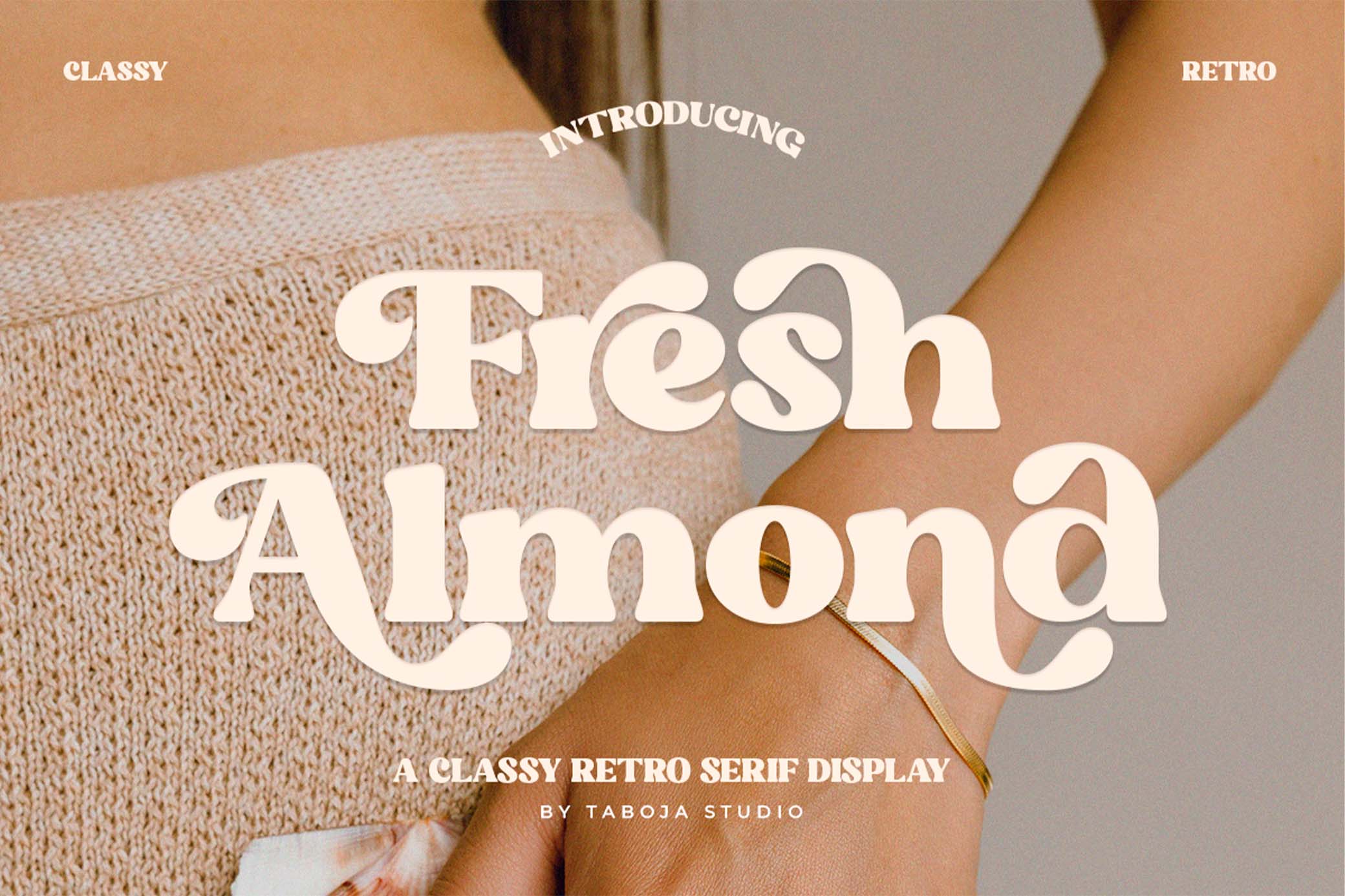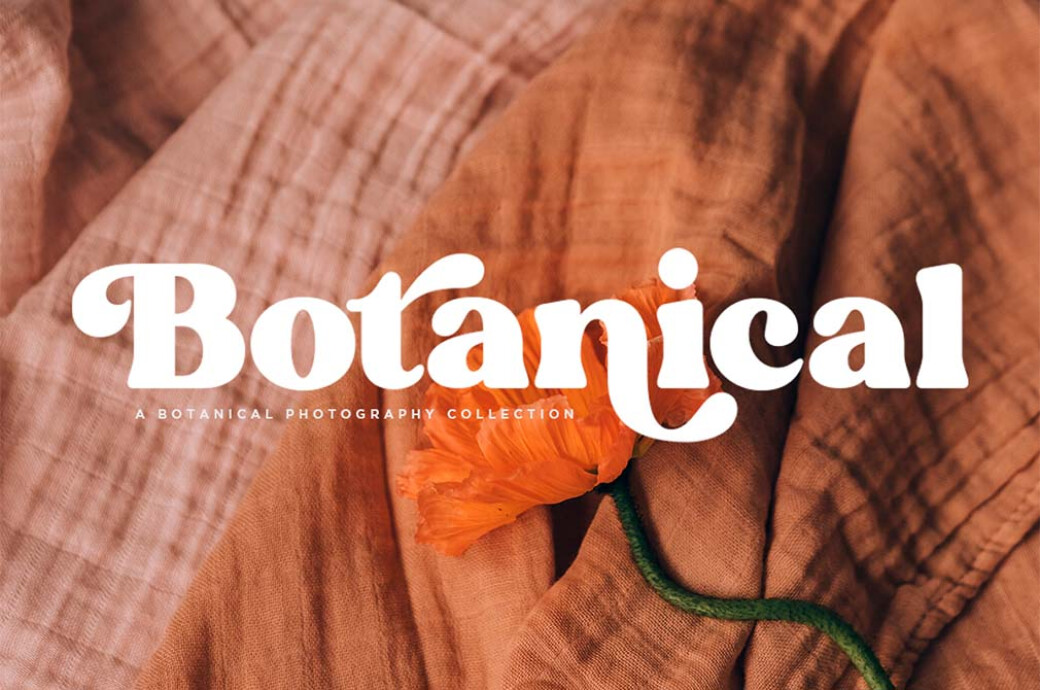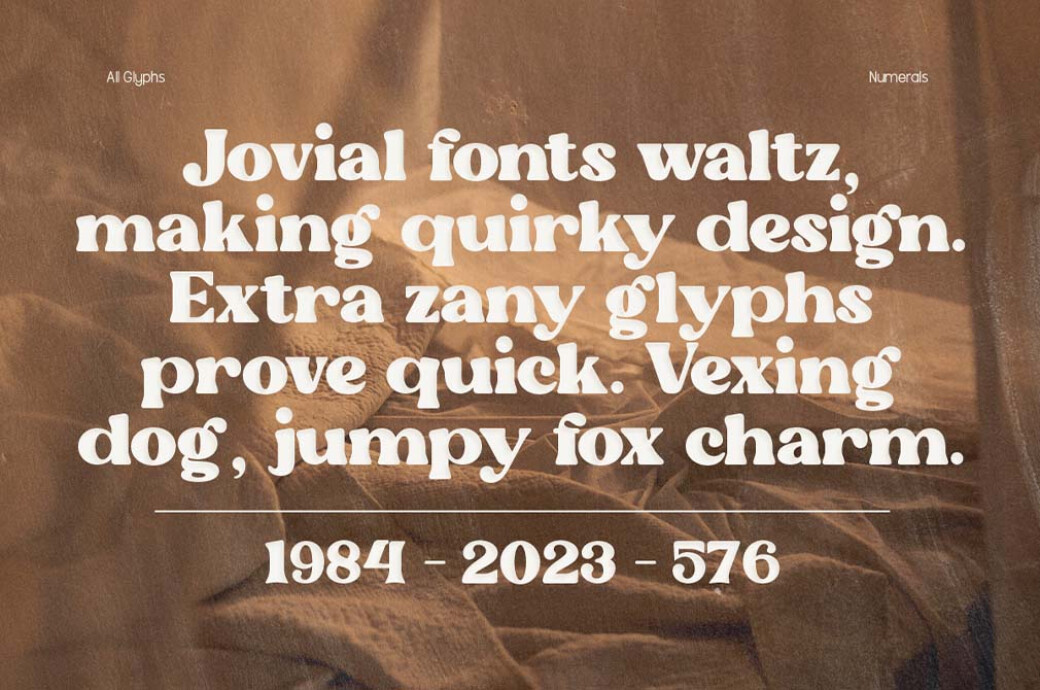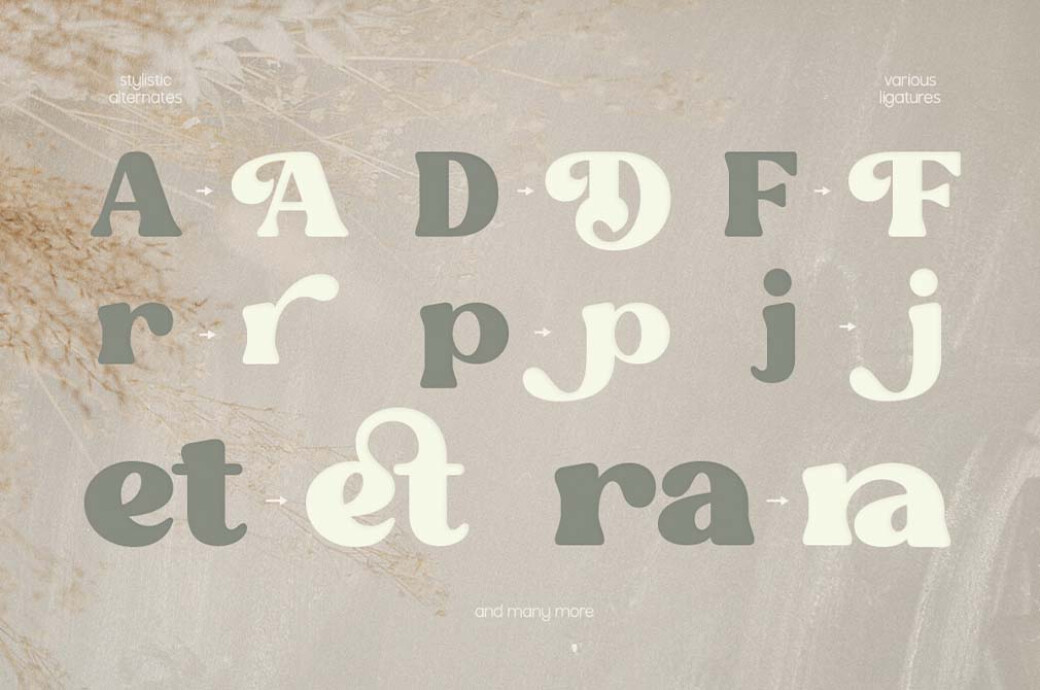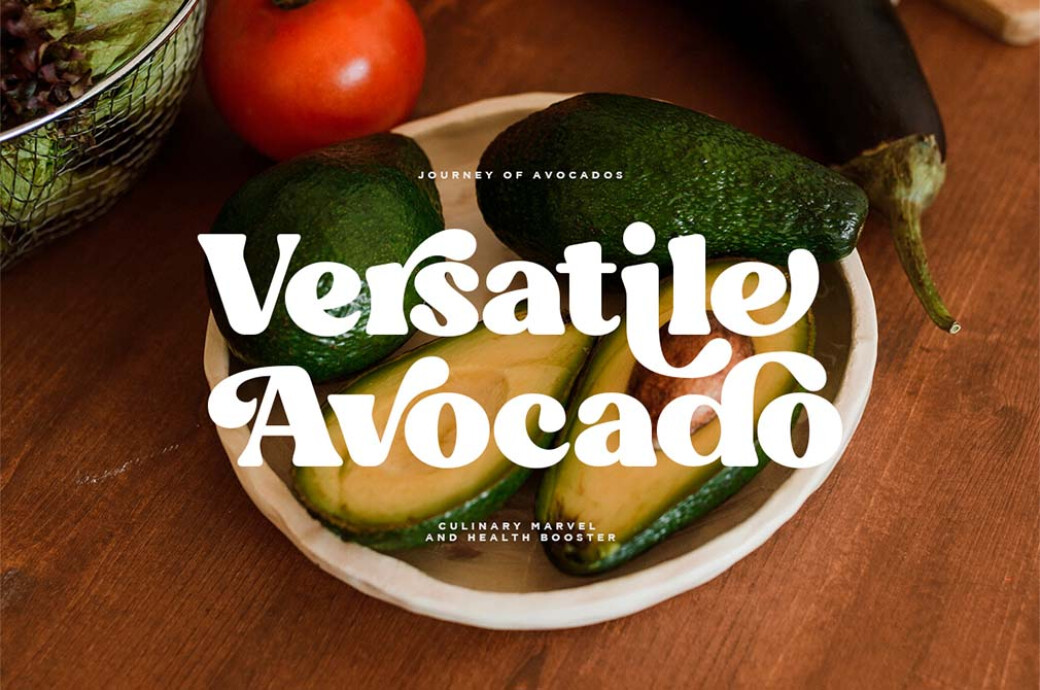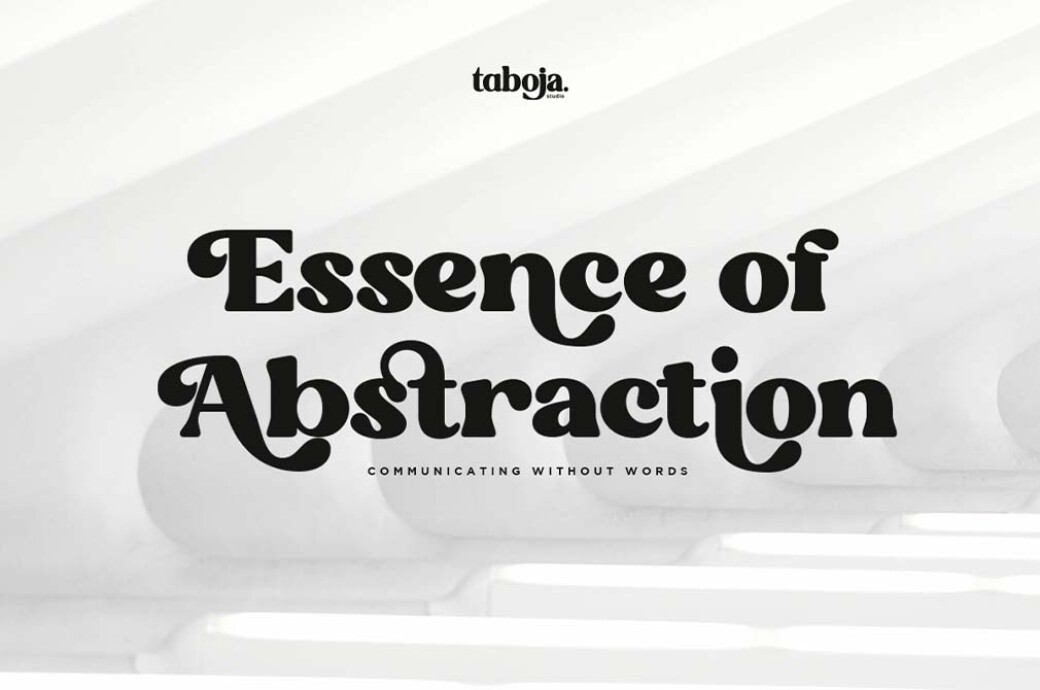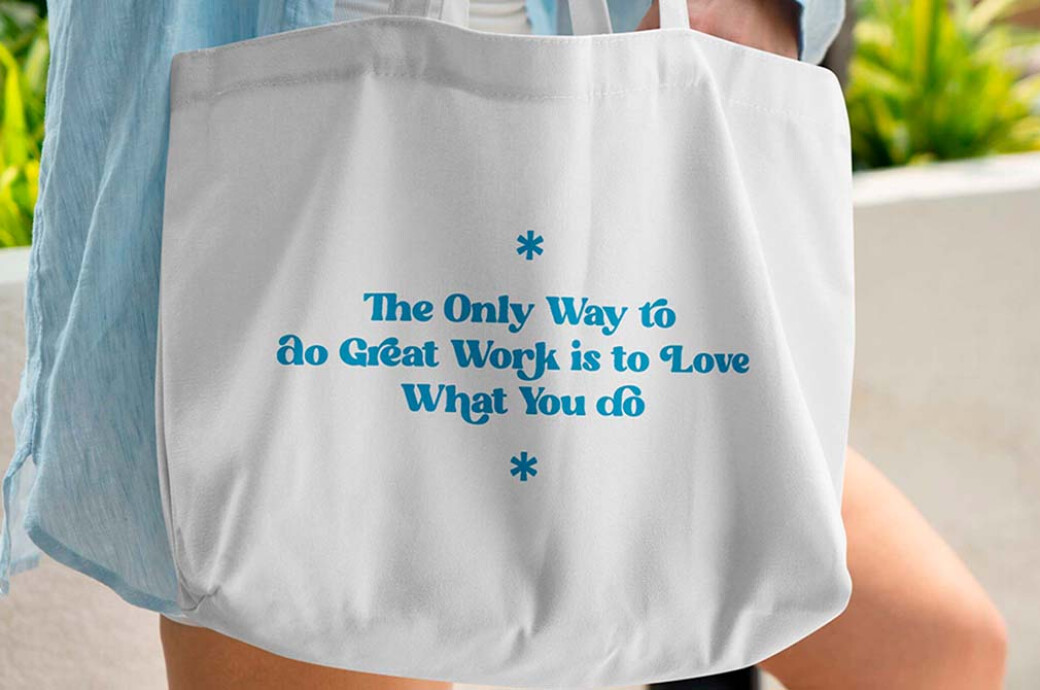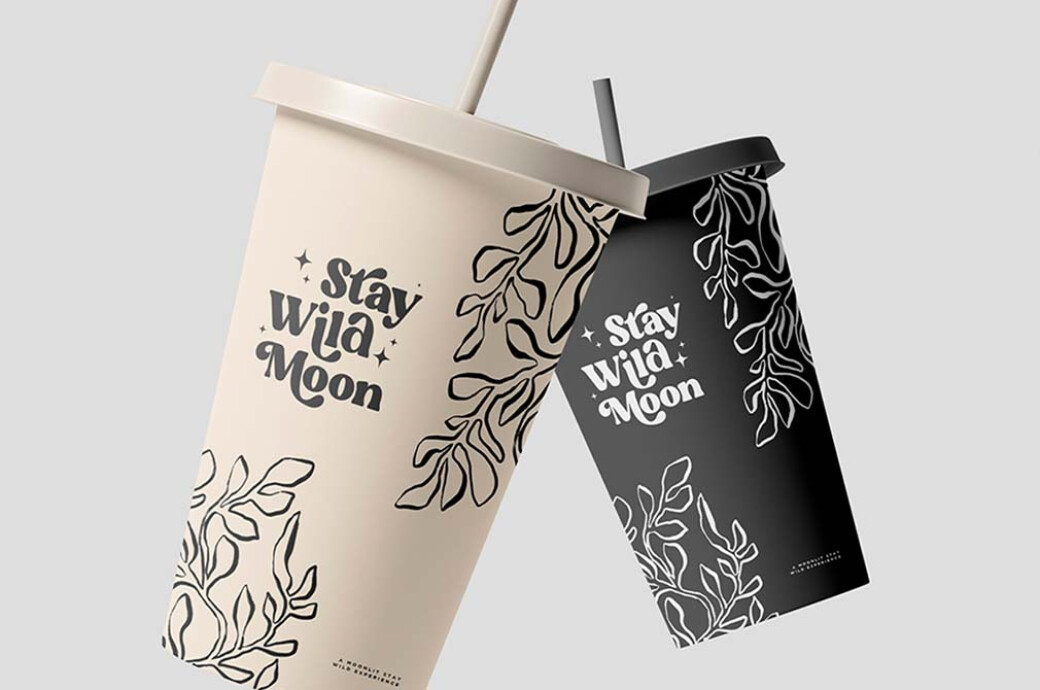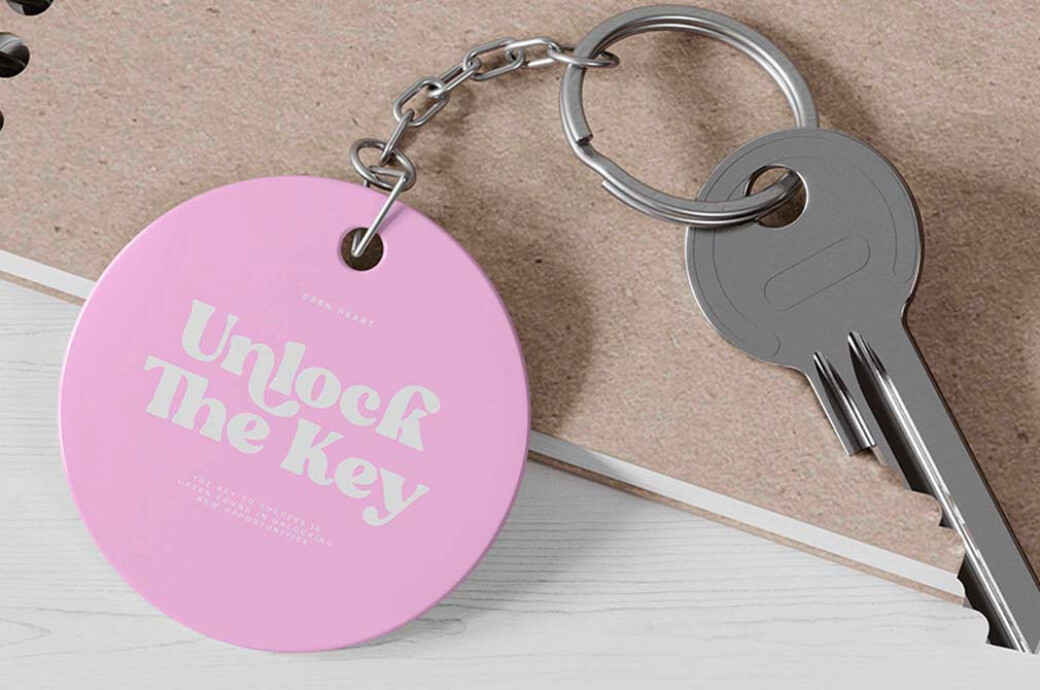
Fresh Almond Serif Font
Fresh Almond
Aesthetic vintage fonts, inspired by eras past, can be found everywhere, from apparel design and social media campaigns to branding and identity projects. They are an example of immense versatility, always looking fresh and trendy.Groovy 70s retro font or elegantly whimsical display font — Fresh Almond can do it all! Presented in all popular formats, this font contains upper and lowercase letters, numerals and punctuation marks. Beware, with this typeface the process of searching for the perfect look of the text may take a while because it encompasses tons of accented characters, stylistic alternates, and ligatures. But be not afraid to go global since Fresh Almond has an extended set of glyphs, providing multilingual support.